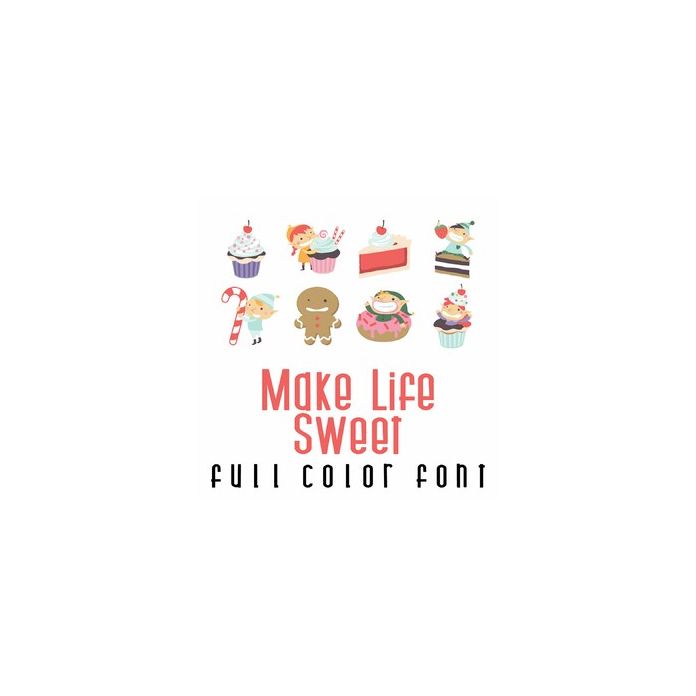
This adorable full-color doodlebat font features 26 adorable elves and sweet holiday treats. Perfect for cards, crafts, gifts, decor, scrapbook pages, planner stickers, and more!